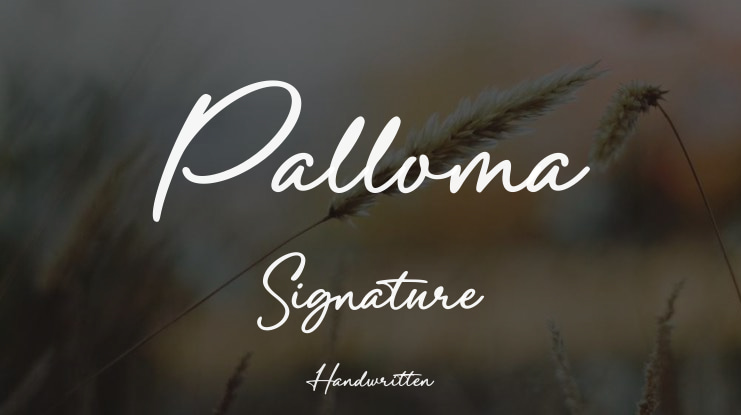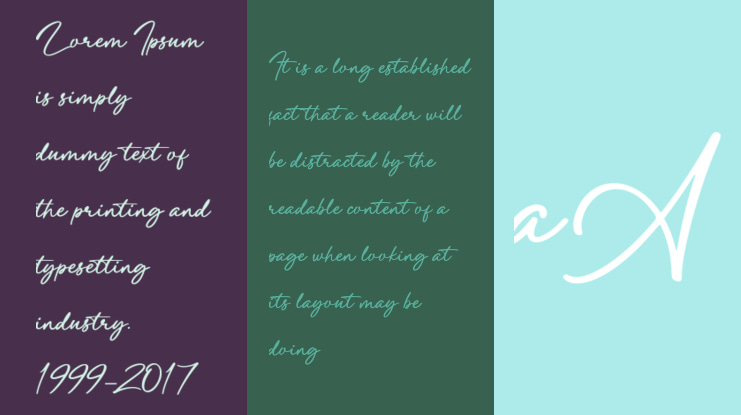
Palloma Signature Font
Bery Arisandi , Basnistudio
Introducing Palloma a Signature Font that adds a elegant, versatile touch to everything from branding and social media to invitations and packaging.